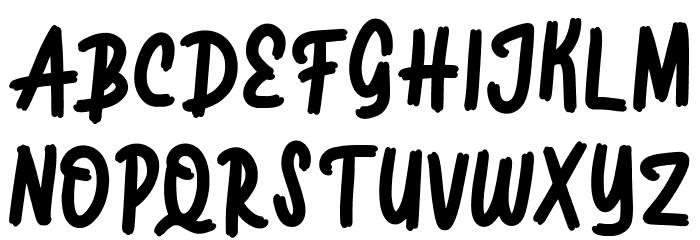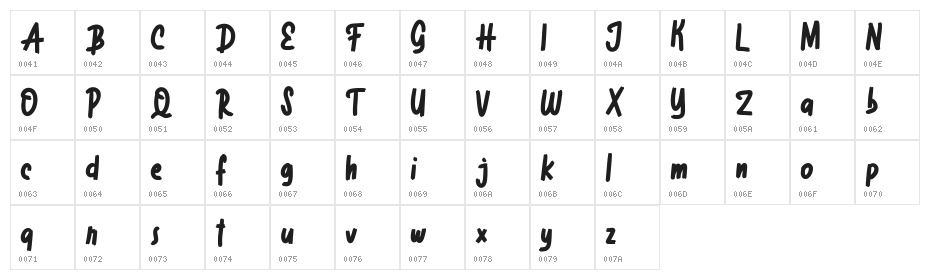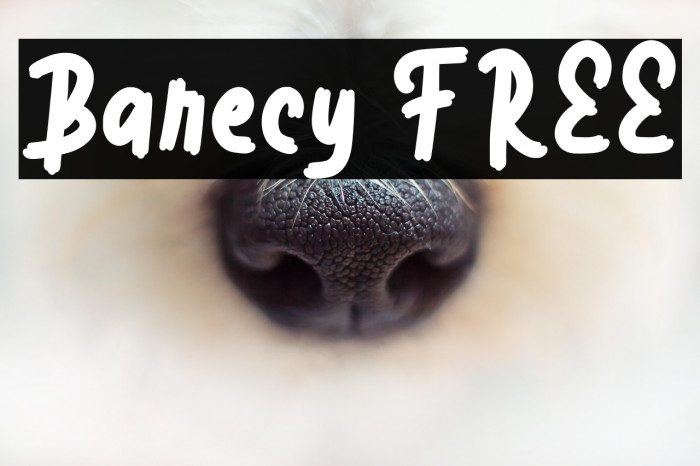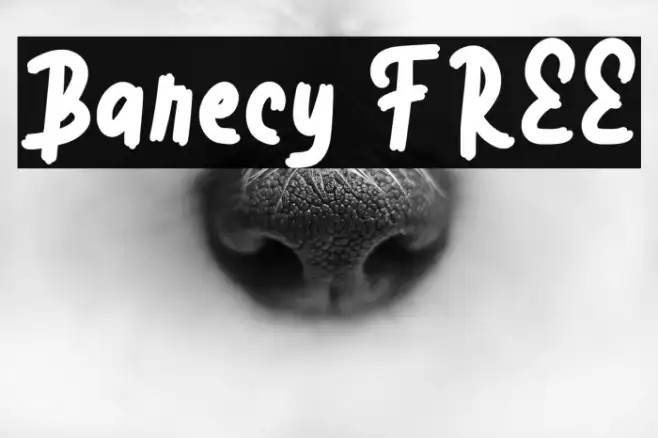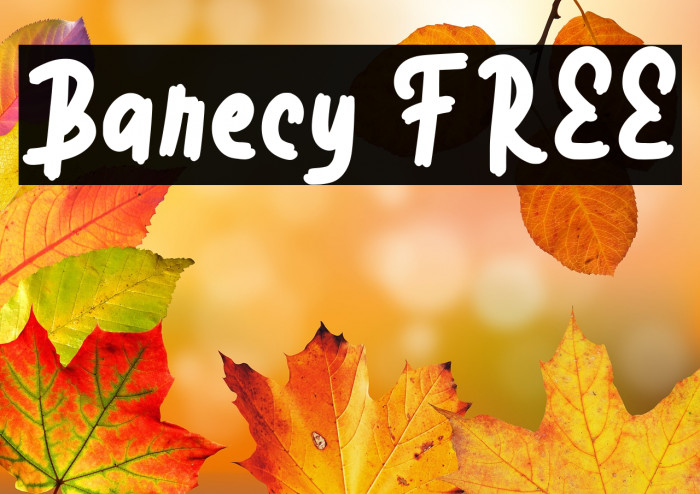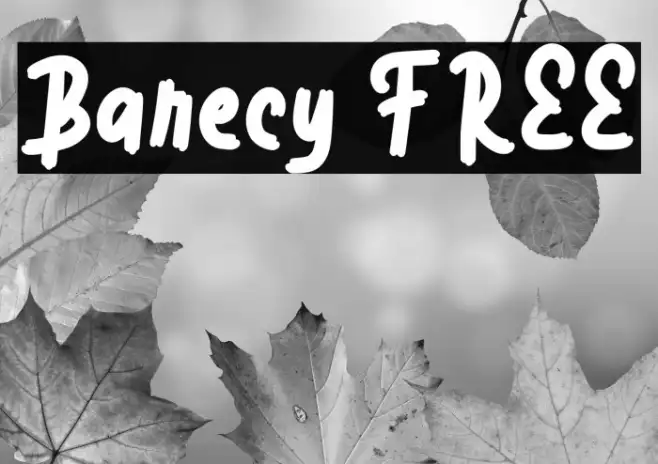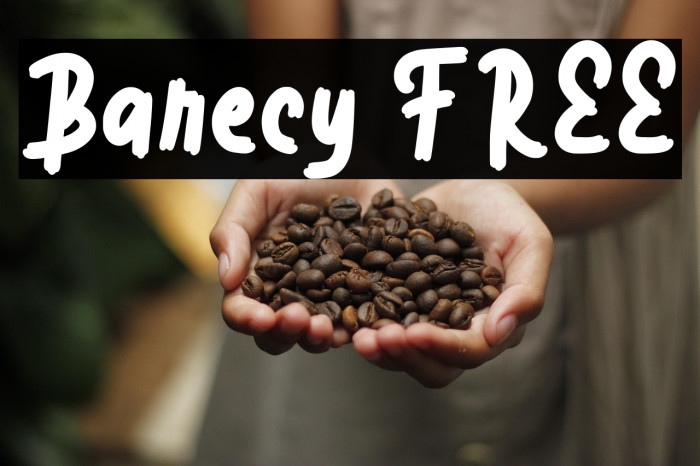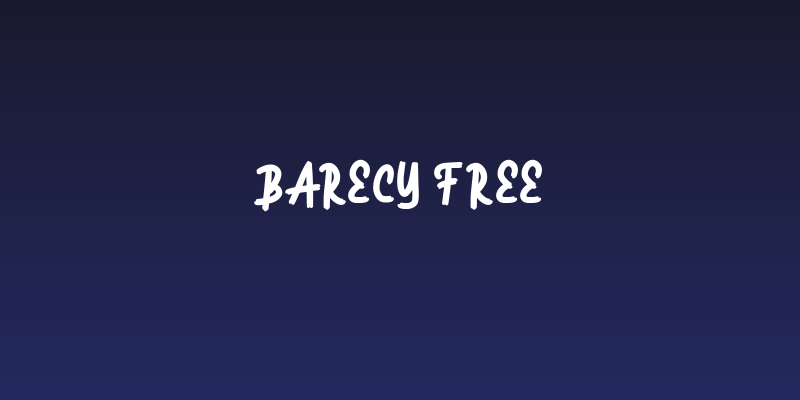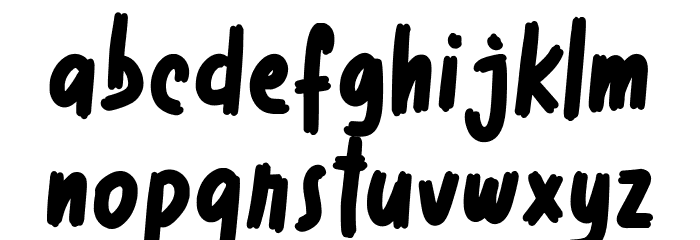
Barecy FREE Font
Barecy FREE Description
This font features a bold and playful handwritten style, characterized by its thick strokes and casual appearance. The letters have a slightly irregular form, giving them a dynamic and lively feel. The uppercase and lowercase letters maintain a consistent style, with rounded edges and a slight slant, adding to the informal and approachable look. The numbers and special characters follow the same design principles, ensuring a cohesive appearance across all glyphs. The overall impression is one of friendliness and creativity, making it suitable for projects that require a personal touch.
Overall StylePlayful
Proposed ProjectsIdeal for greeting cards, children's books, playful branding, and social media graphics.